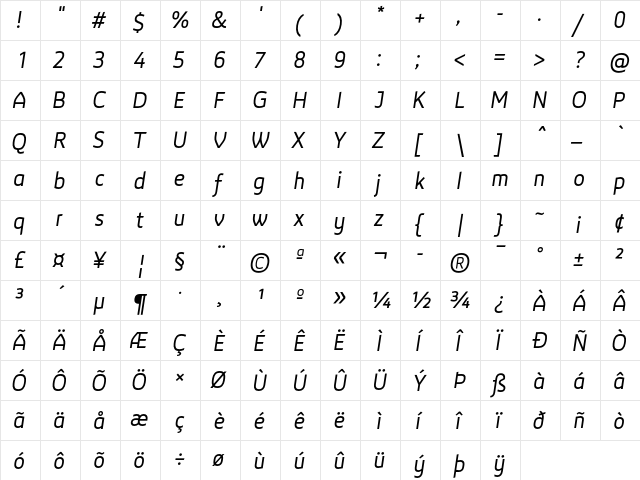
LT Reponse Italic
| Foundry | Daniel Lyons Entertainment / LyonsType |
| Designer | Dan P. Lyons |
Design Context for LT Reponse Typeface
LT Reponse takes a measured approach to typography — its balanced proportions and neutral character make it a reliable workhorse for both digital and print work. The dynamic lean of this cut emphasises speed and emphasis in any layout. Its slender proportions lend an understated elegance to any composition.